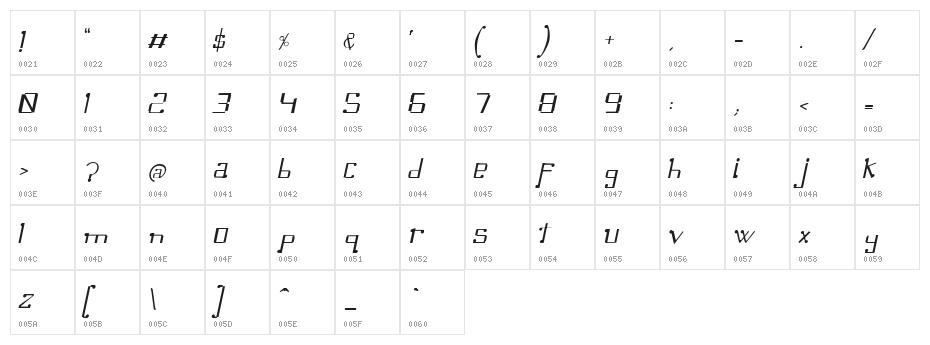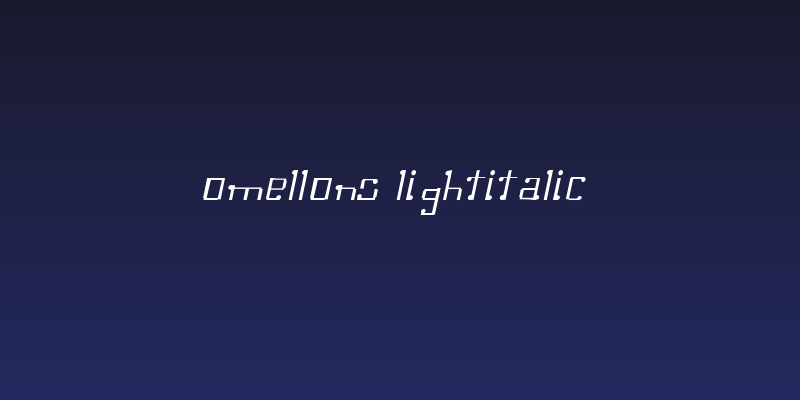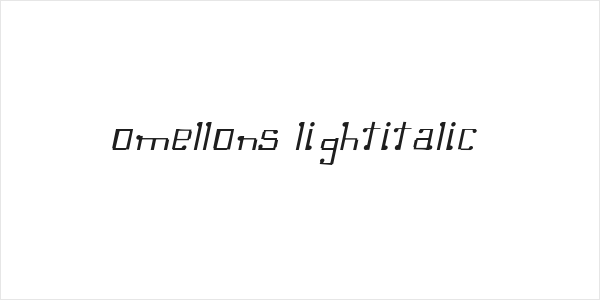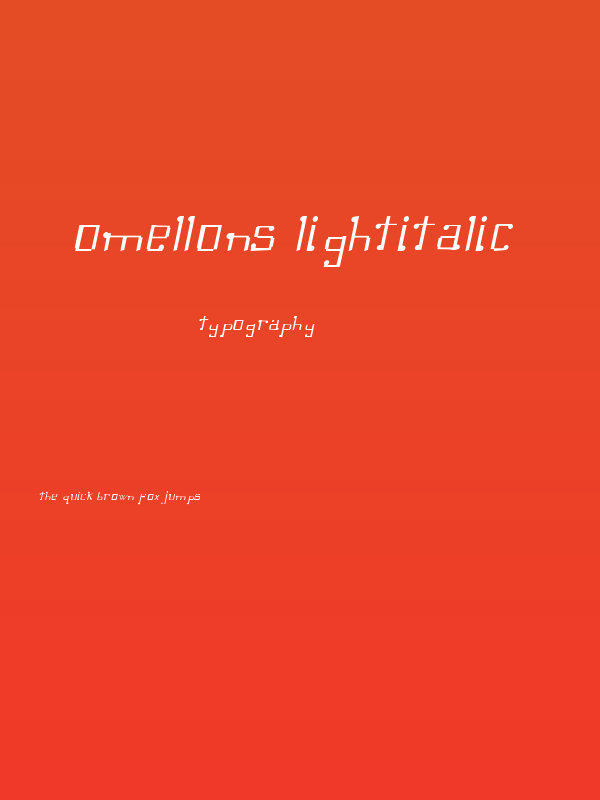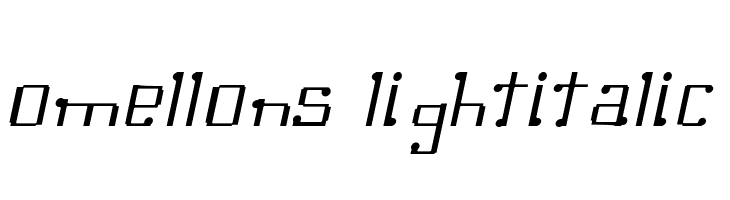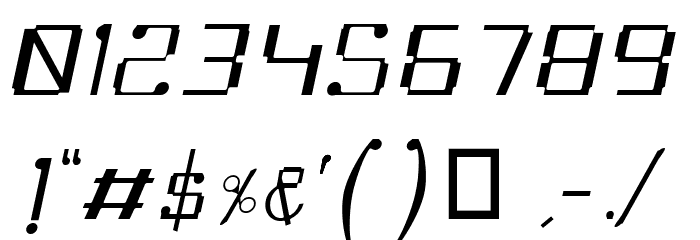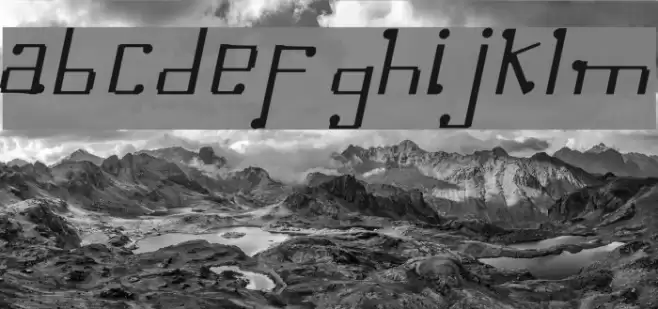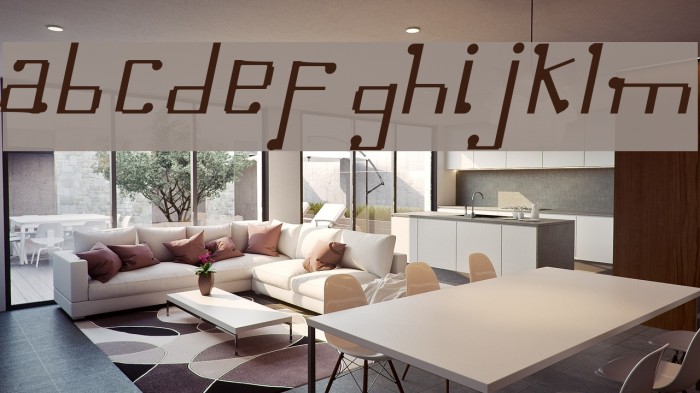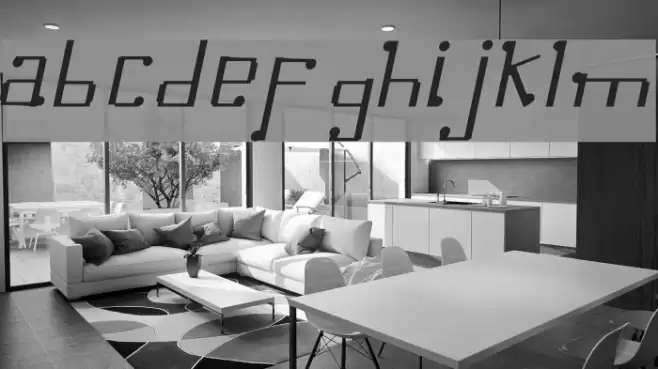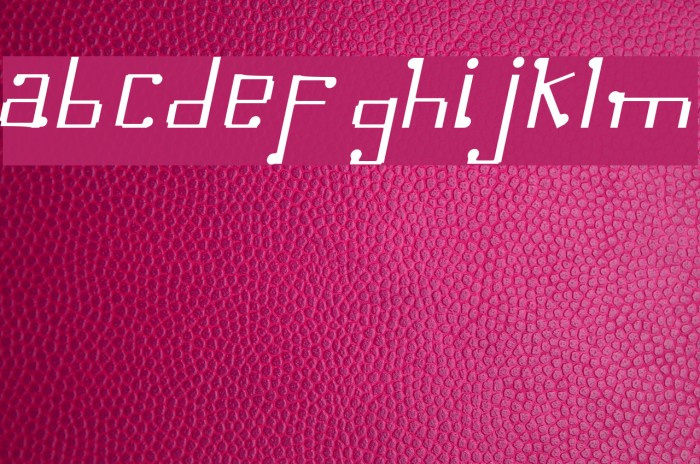
Omellons LightItalic Font
Omellons LightItalic Description
This font features a unique blend of geometric and cursive elements, creating a modern and stylish appearance. The characters are slightly slanted, giving an italicized look, while maintaining a clean and structured form. The strokes are consistent in width, with subtle variations that add a touch of elegance. The font includes both uppercase and lowercase letters, numerals, and a variety of special characters. Its distinctive style makes it suitable for creative and artistic projects, where a contemporary yet sophisticated typeface is desired.